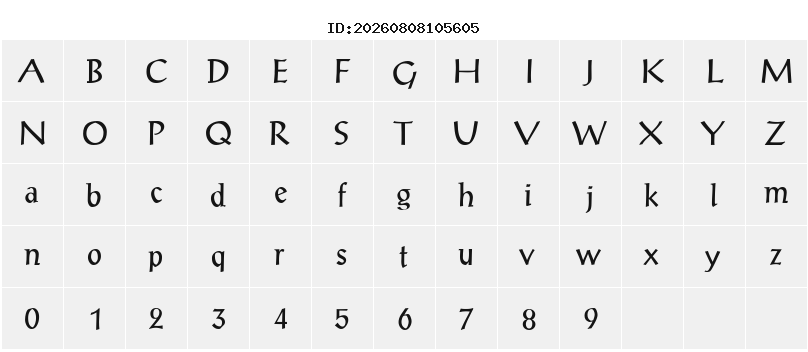
• Font Name: PosauneDB
PosauneDB.ttf is a modern, elegant sans-serif font designed for ultimate readability and visual harmony. Perfect for branding, headlines, web design, and print materials.